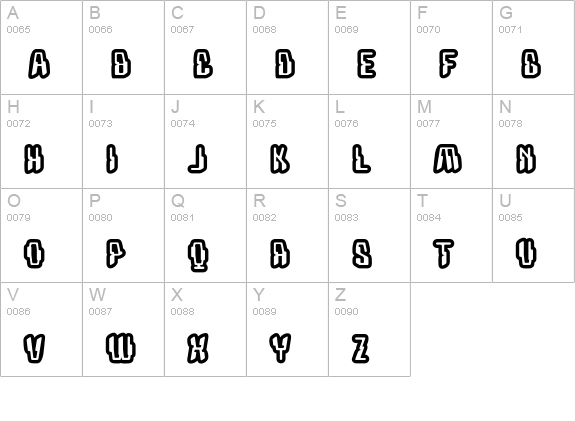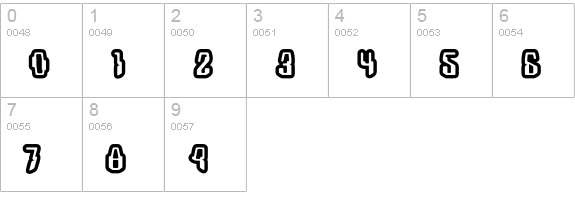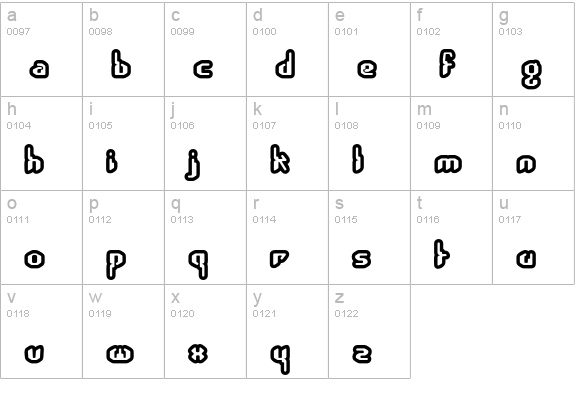
CoaxialInlay Font Details
CoaxialInlay font is a unique and modern typeface that exudes elegance and sophistication. With its sleek lines and sophisticated design, this font is perfect for adding a touch of class to any project. The inlaid detailing gives it a distinctive look that sets it apart from other fonts. Best of all, CoaxialInlay font is completely free to download at FontsMarket.com. Whether you're working on a professional design project or simply looking to add a stylish flair to your personal creations, CoaxialInlay font is the perfect choice. Download it today and elevate your designs with this stunning and versatile font.